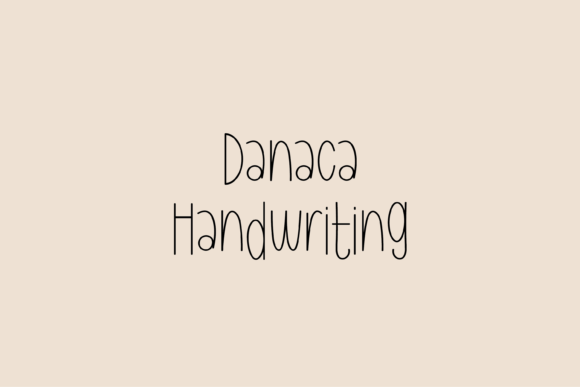
Step into a world of enchantment and creativity with Danaca Font, the captivating script font that will cast a spell on your designs. Its playful and carefree nature, inspired by the magic of handwritten notes, is sure to leave a lasting impression.
With Danaca Font, your projects will exude a touch of whimsy and charm. Let your imagination run wild as you incorporate it into logos, wedding invitations, captivating quotes, eye-catching advertisements, and stunning print materials. Its versatility knows no bounds, making it a perfect fit for magazines, branding, and any endeavor that calls for a dash of delightful flair.
Discover the joy of effortless elegance with Danaca Font. Its charming curves and unique character will elevate your designs to new heights, leaving your audience spellbound. Whether you're crafting personal messages, creating enchanting stories, or designing captivating visuals, Danaca Font is your perfect companion.
Embrace the boundless possibilities that await you with Danaca Font. Its playful spirit and enchanting aura will transform your projects into captivating works of art. Let your creativity shine as you unleash the magic of Danaca Font, leaving an indelible mark on the hearts of your audience.